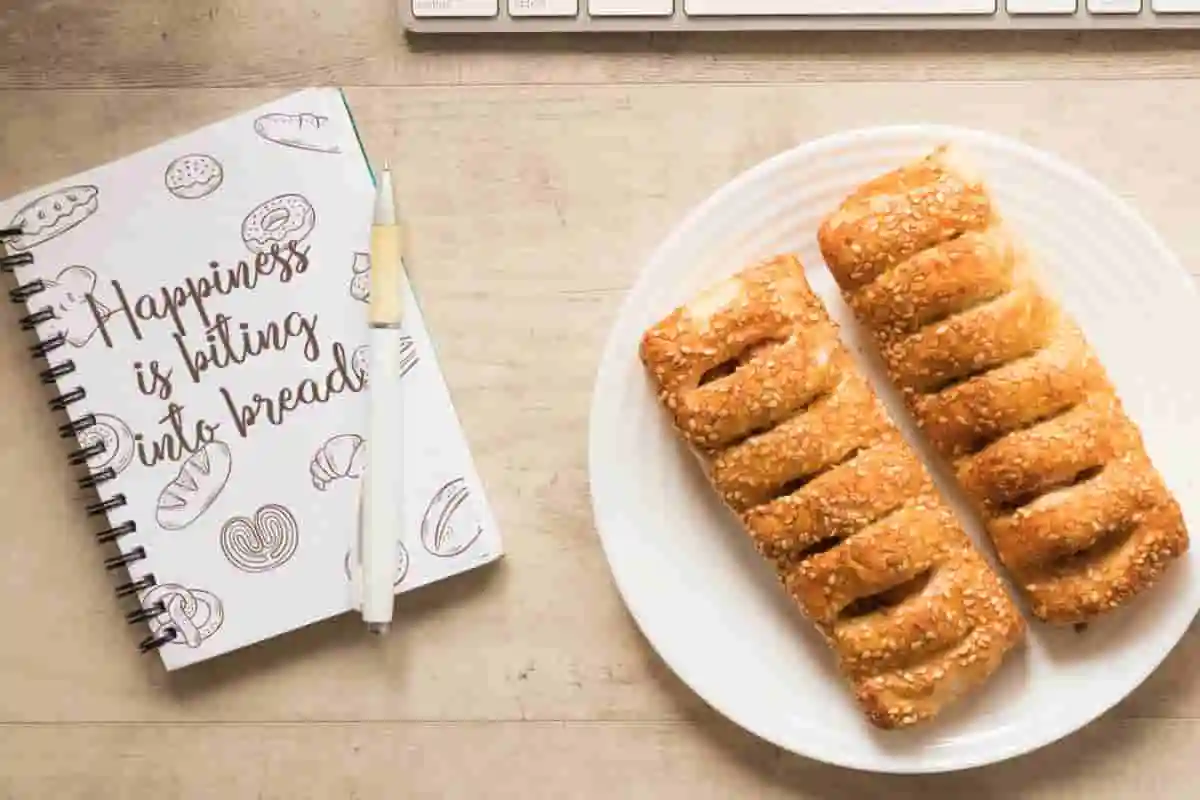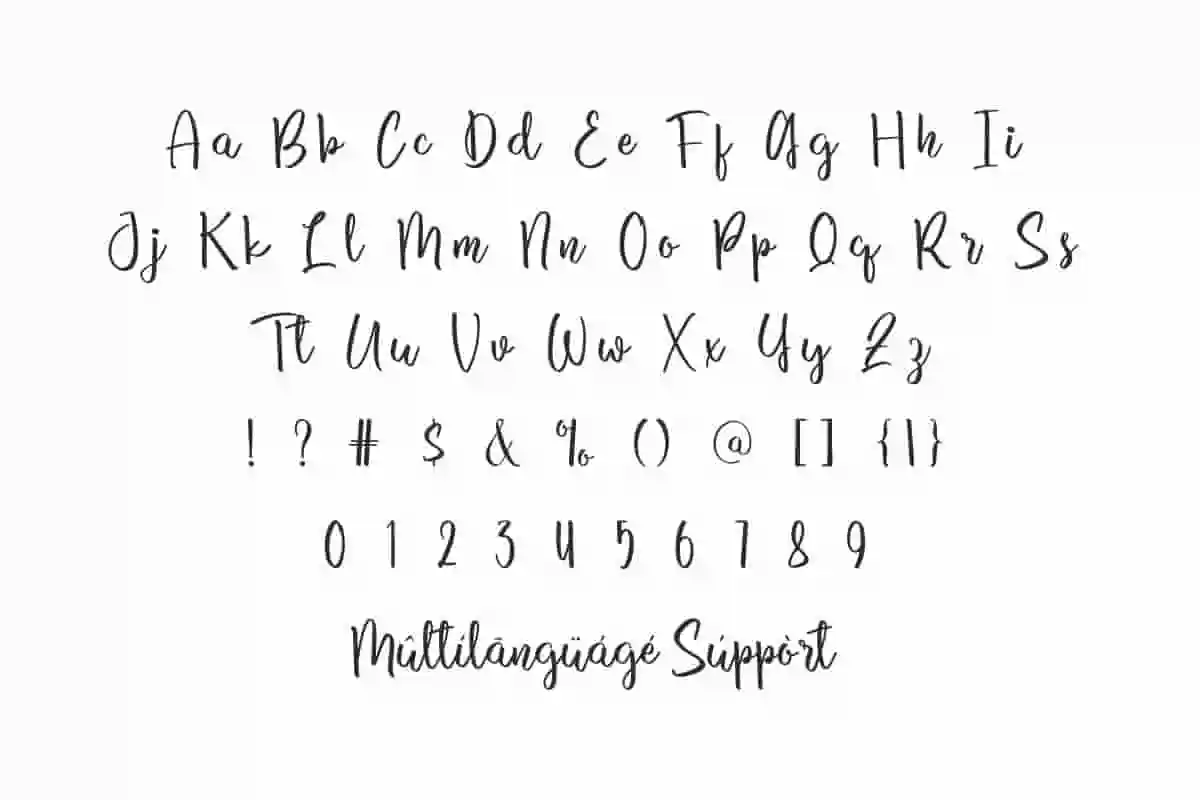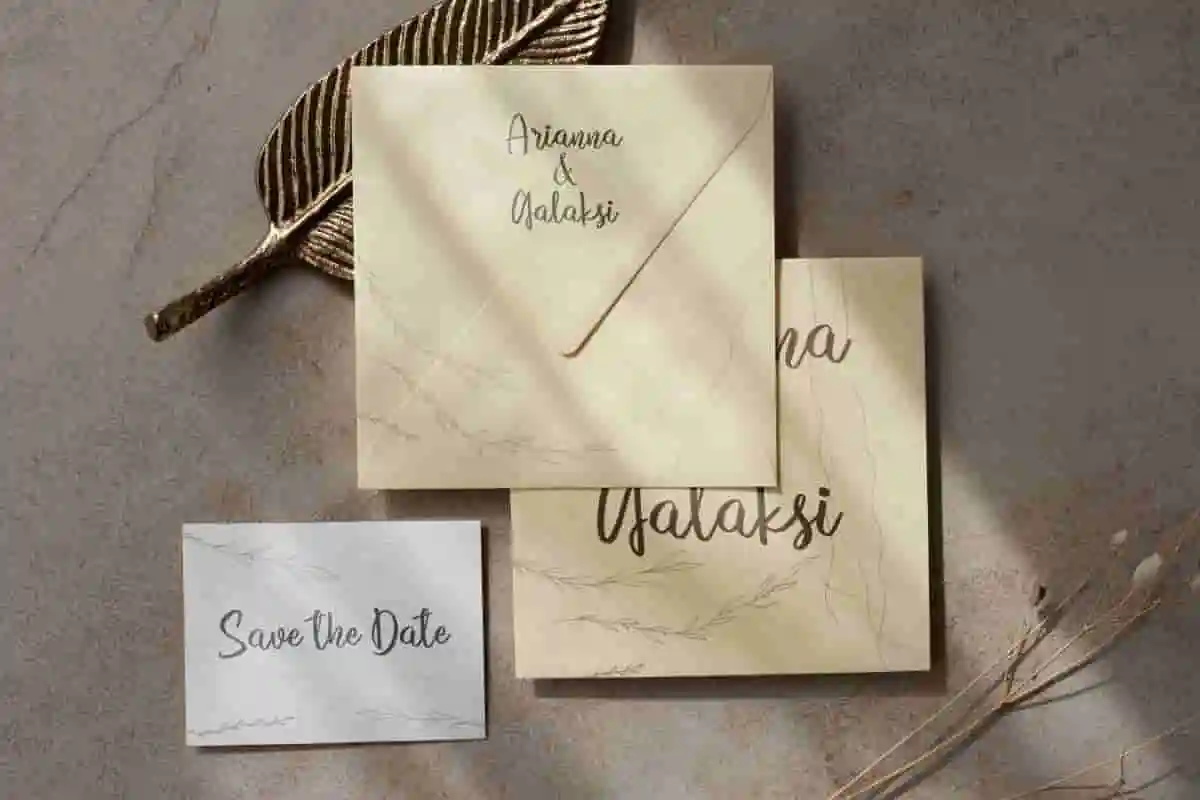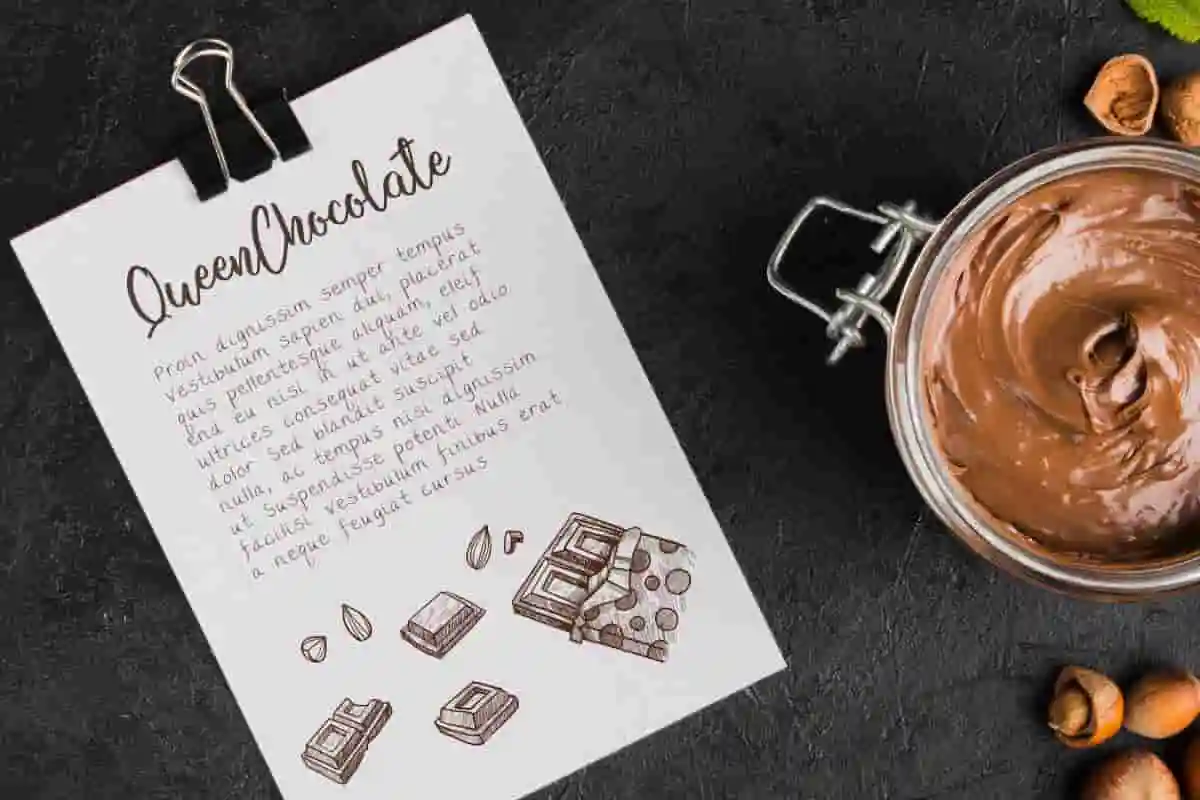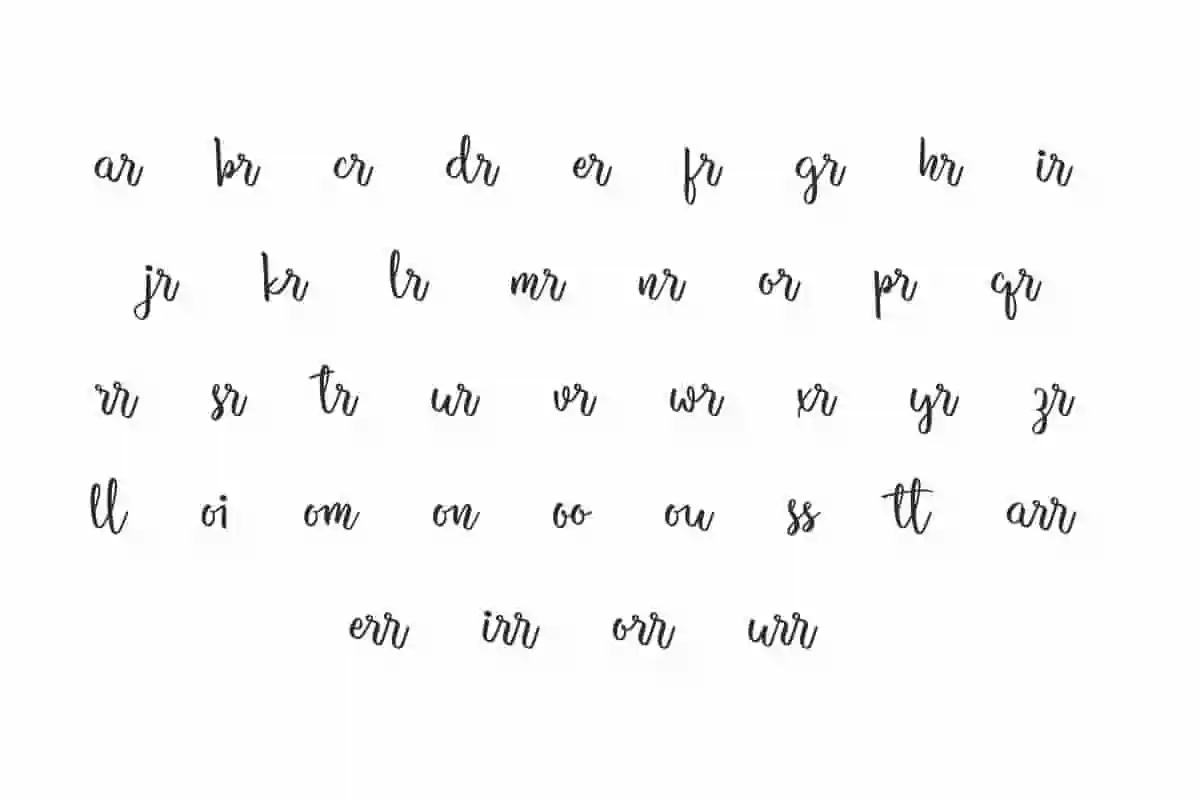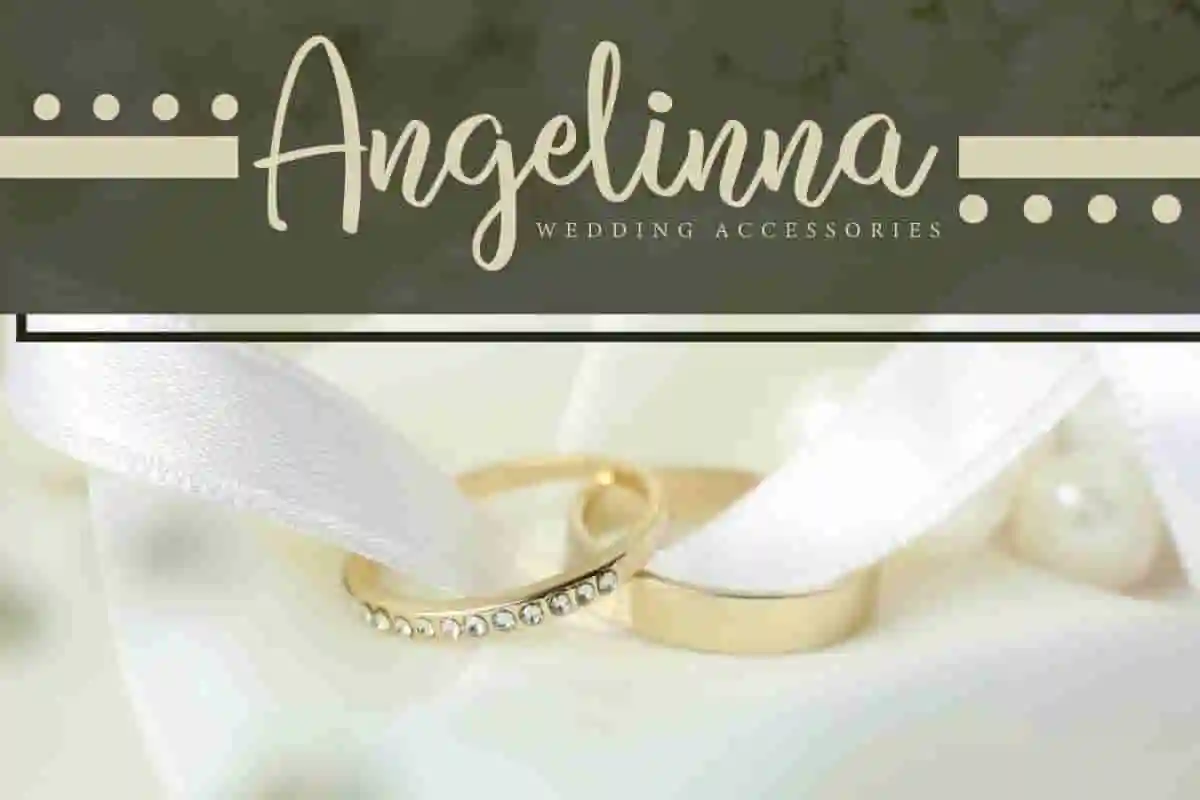
Twinkle Ponney Font
Twinkle Ponney Font is a sweet handwritten font that will be a complement for you to create invitation, jewelry brands, label, pastry business, titles, etc.
Twinkle Ponney Font is a sweet handwritten font specially made for anyone who needs a memorable look. This typography is themed with sweet things made by us to complete your project, such as brand logo, brochure, catalog, cover, invitation, label, signage, stationery, sticker, title, watermark, website, and much more!
Twinkle Ponney Font comes with a full set of Uppercase and Lowercase Basic Characters, Number, Punctuation, Symbol. This font also features ligature characters to provide perfectly bound letter pairs and add aesthetic value to the font. Use this for your business industry such as author, bakery, event organizer, photography, printing, publishing, restaurant, wedding, etc.